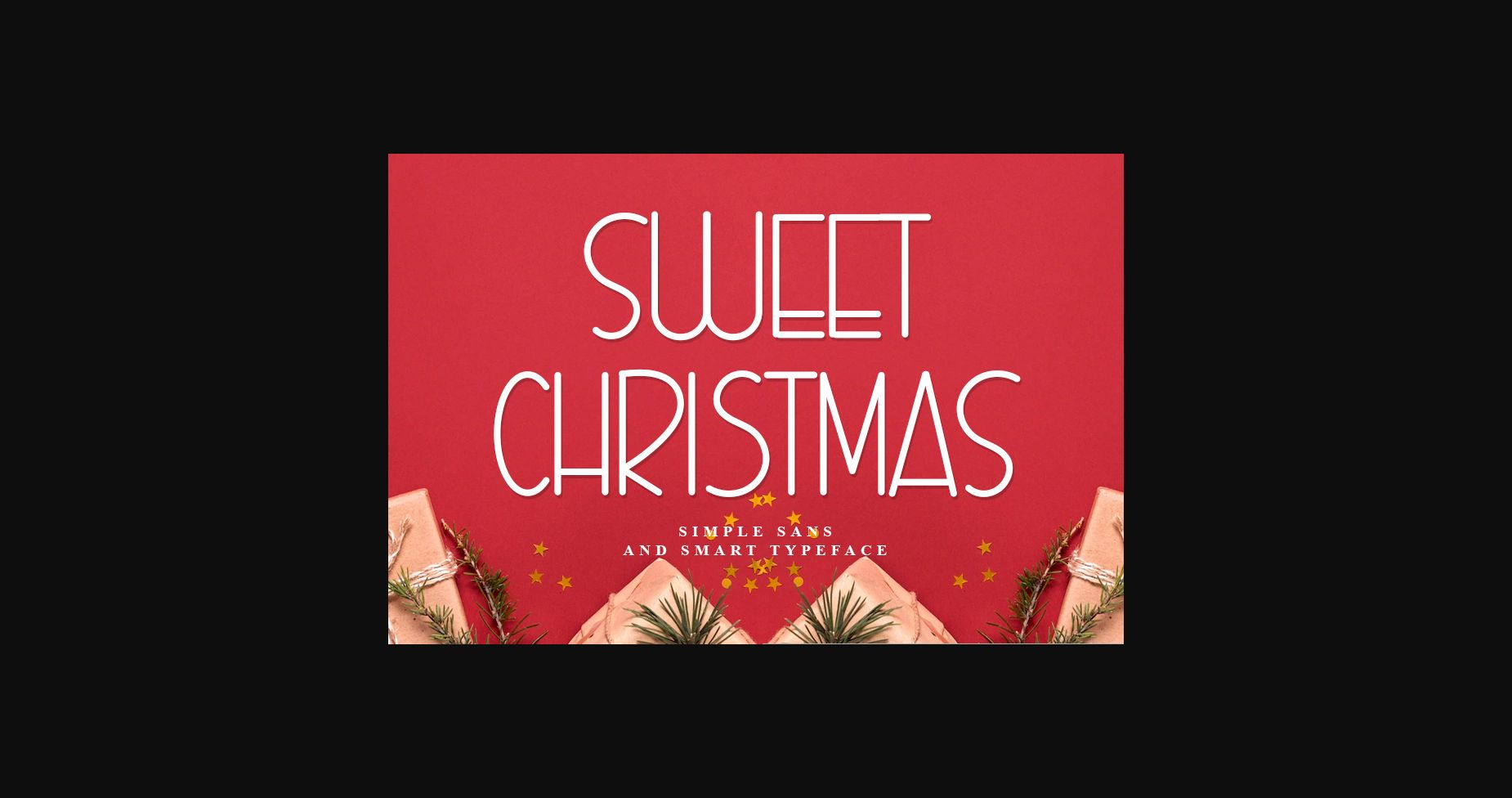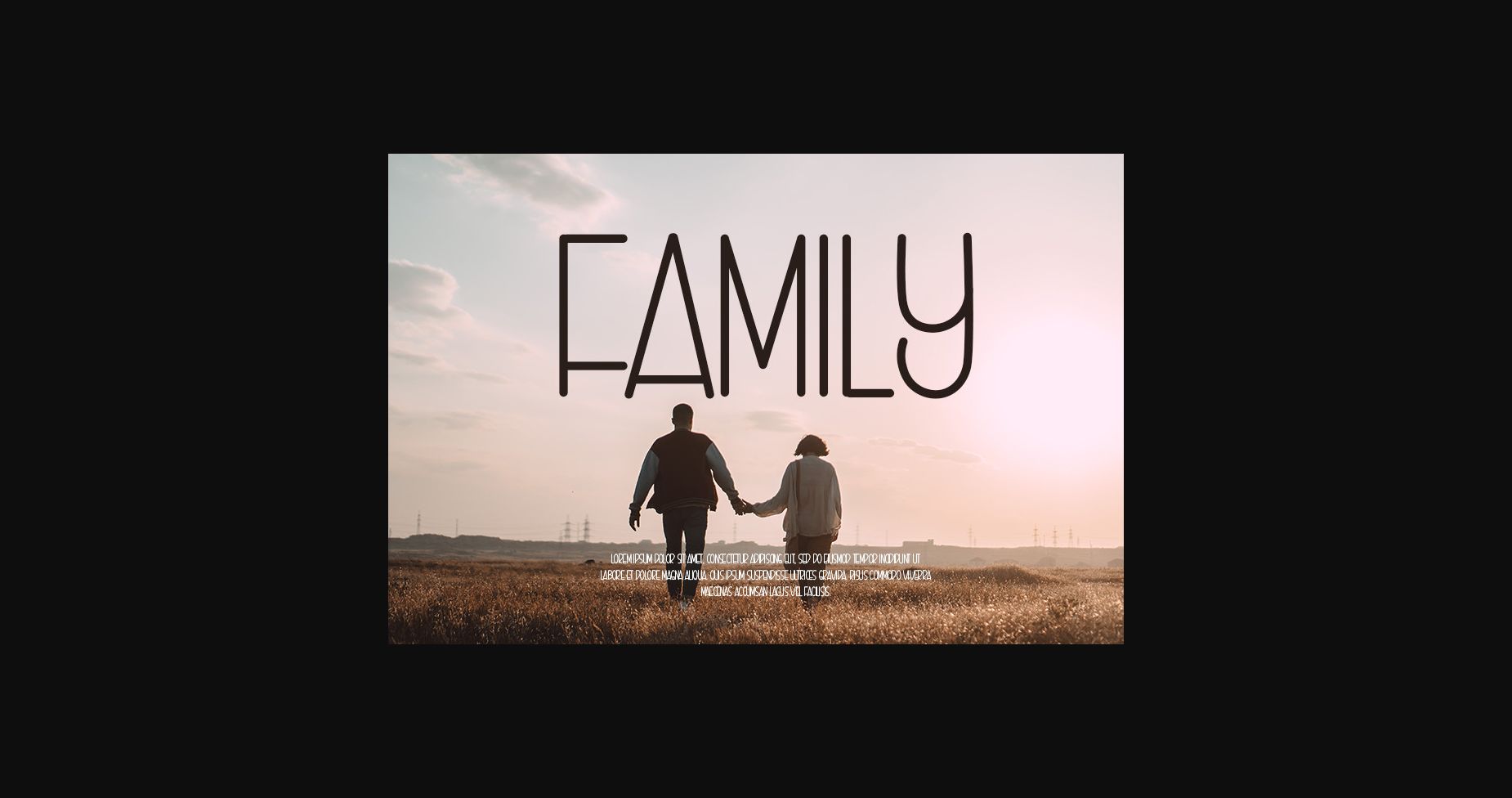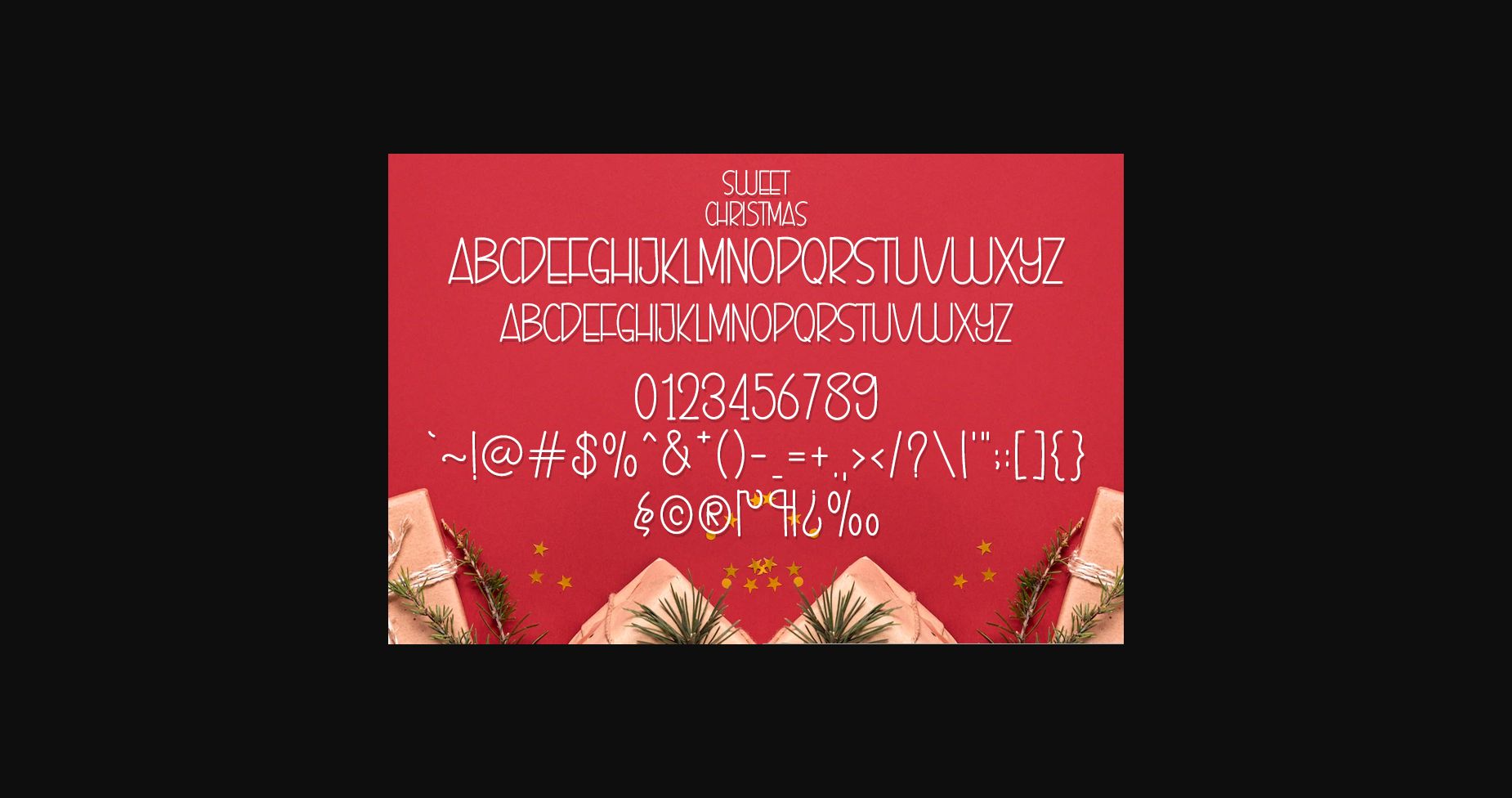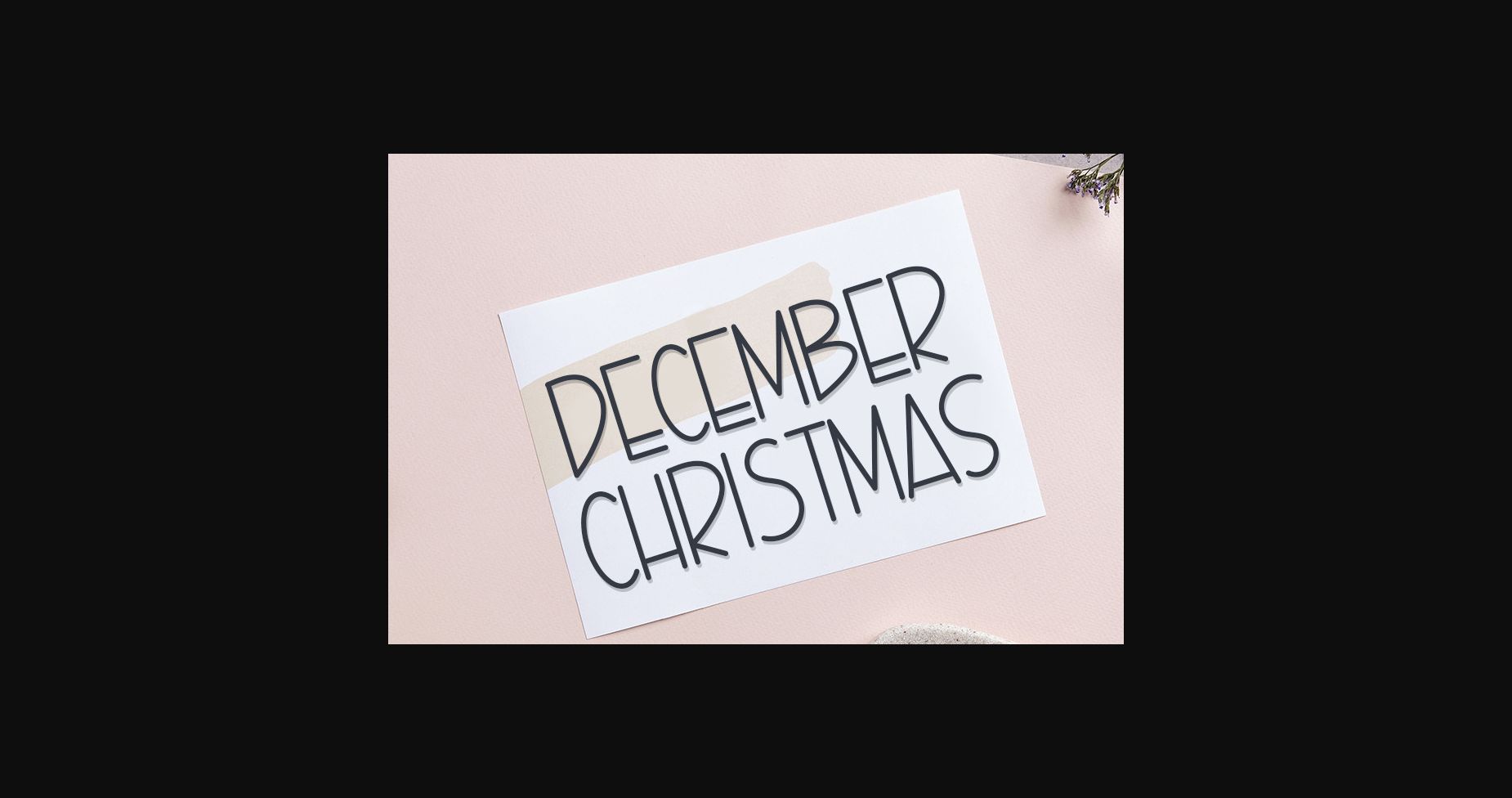
About Sweet Christmas Font
Sweet Christmas is a stylish handwritten sans serif font with a contemporary atmosphere and impeccable form, inspired by timeless classic calligraphy. Balanced and varied, this font was designed to enhance the beauty of your projects.